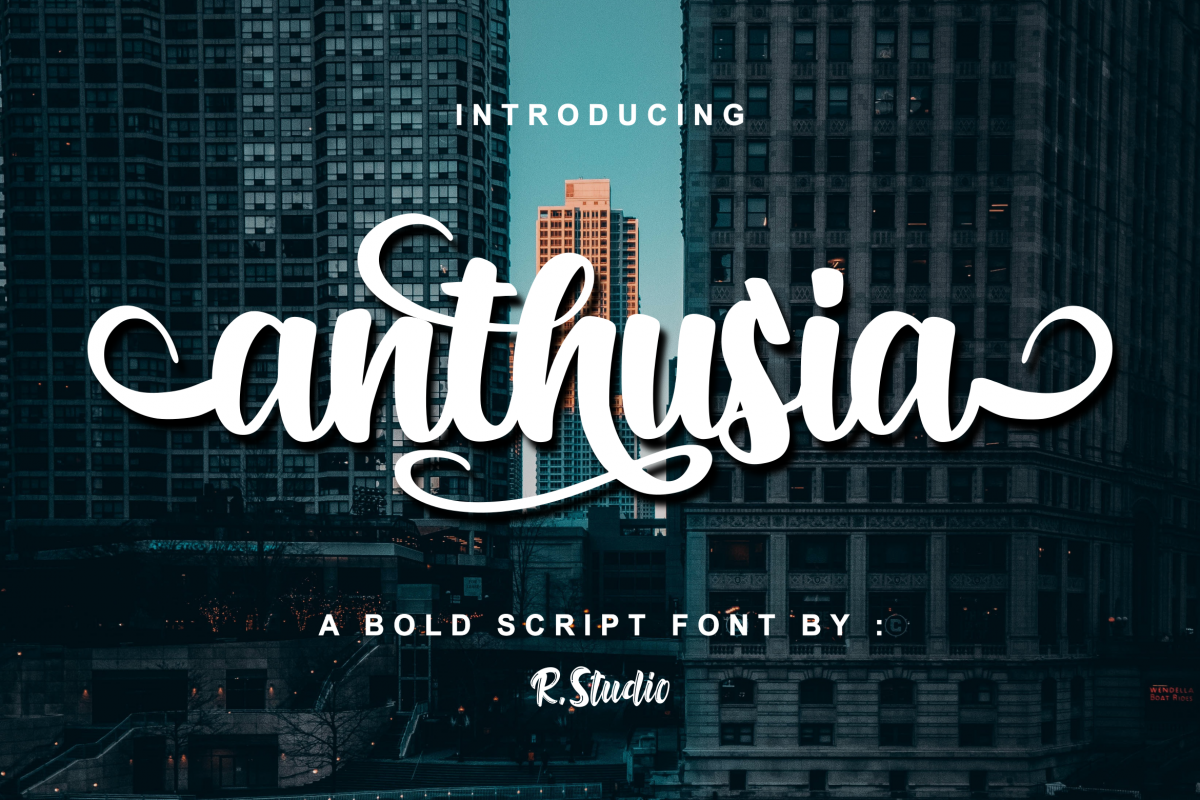
Anthusia
Anthusia is a bold script font with strong natural movements. Get inspired by its unique feel, and turn any design project into a stunner.
- Ligature
- Alternates
- PUA Encoded Characters